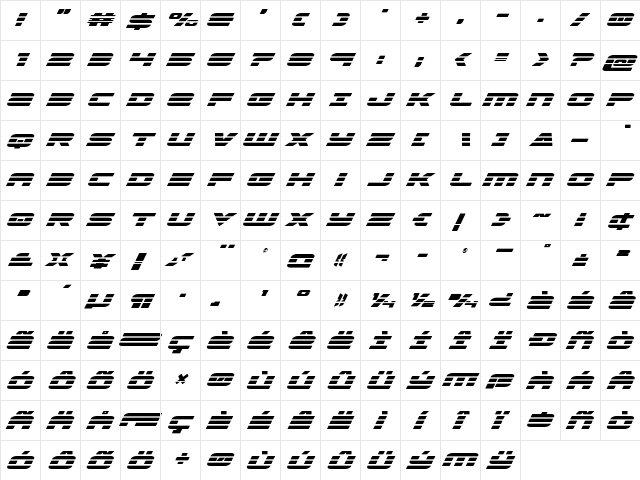
Speed Phreak Laser Italic Italic
Design Context for Speed Phreak Laser Italic Typeface
Speed Phreak Laser Italic is a composed and adaptable typeface that performs quietly and consistently across a wide range of design contexts. The dynamic lean of this cut emphasises speed and emphasis in any layout.
Pro Tip: Try Speed Phreak Laser Italic for annotation and caption copy alongside an upright companion — the contrast in angle creates a dynamic but ordered typographic system.